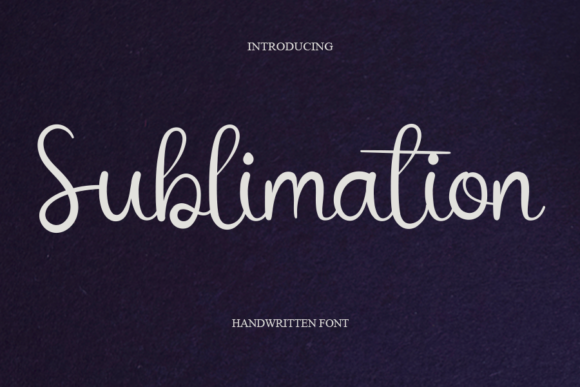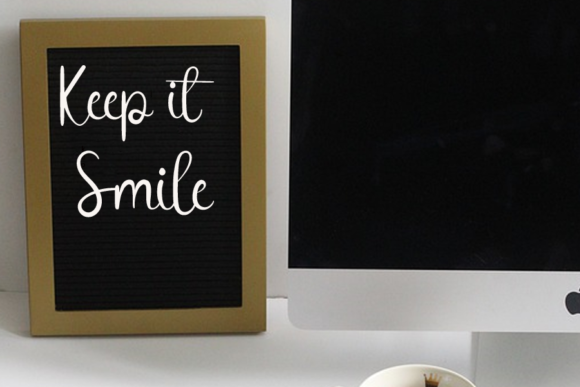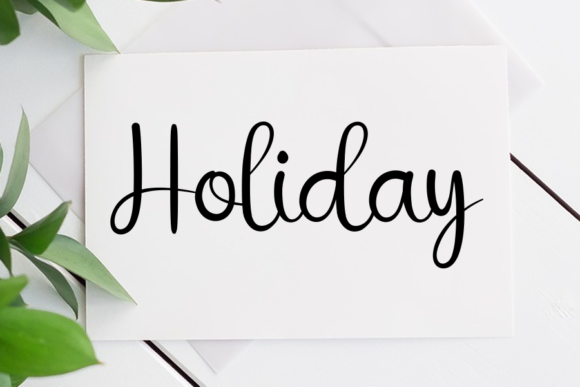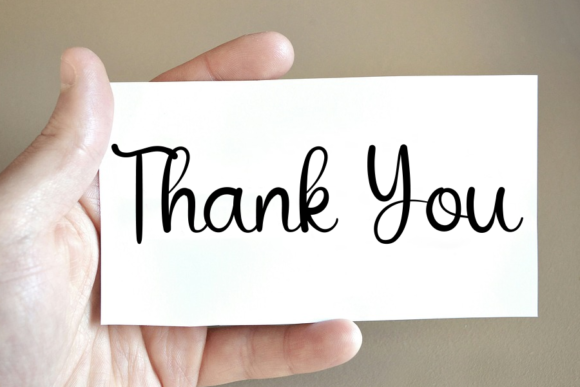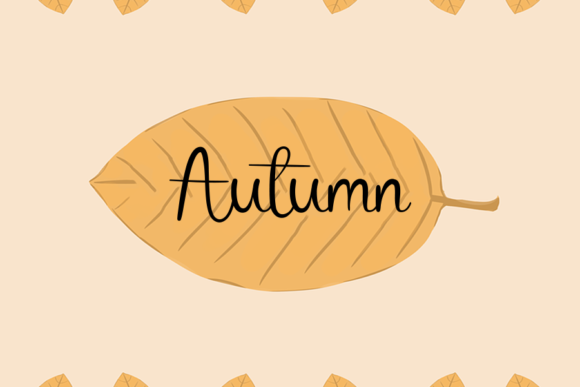
Sublimation Font
About Sublimation Font
Sublimation is a cute and trendy handwritten font. Its natural and unique style makes it incredibly fitting to a large pool of designs. The only limit is your imagination!